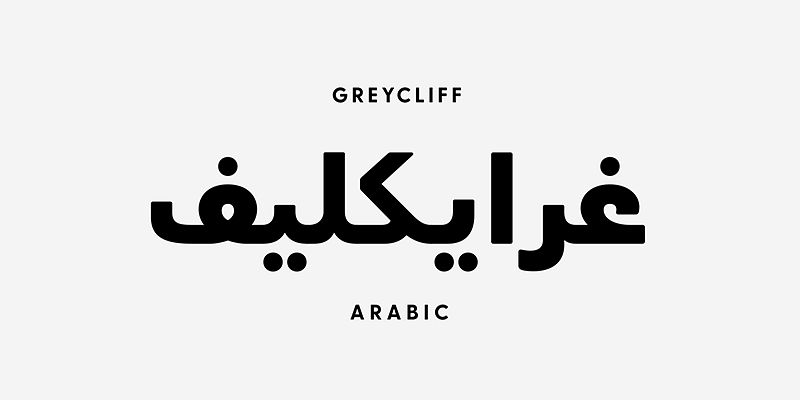
Greycliff Arabic CF Font Free Download is a modern and sophisticated typeface that combines the clean, geometric style of the Greycliff family with Arabic script. Its balanced design makes it perfect for projects that require both Arabic and Latin text, including branding, editorial design, digital platforms, and any design project that demands clarity and elegance in both scripts.